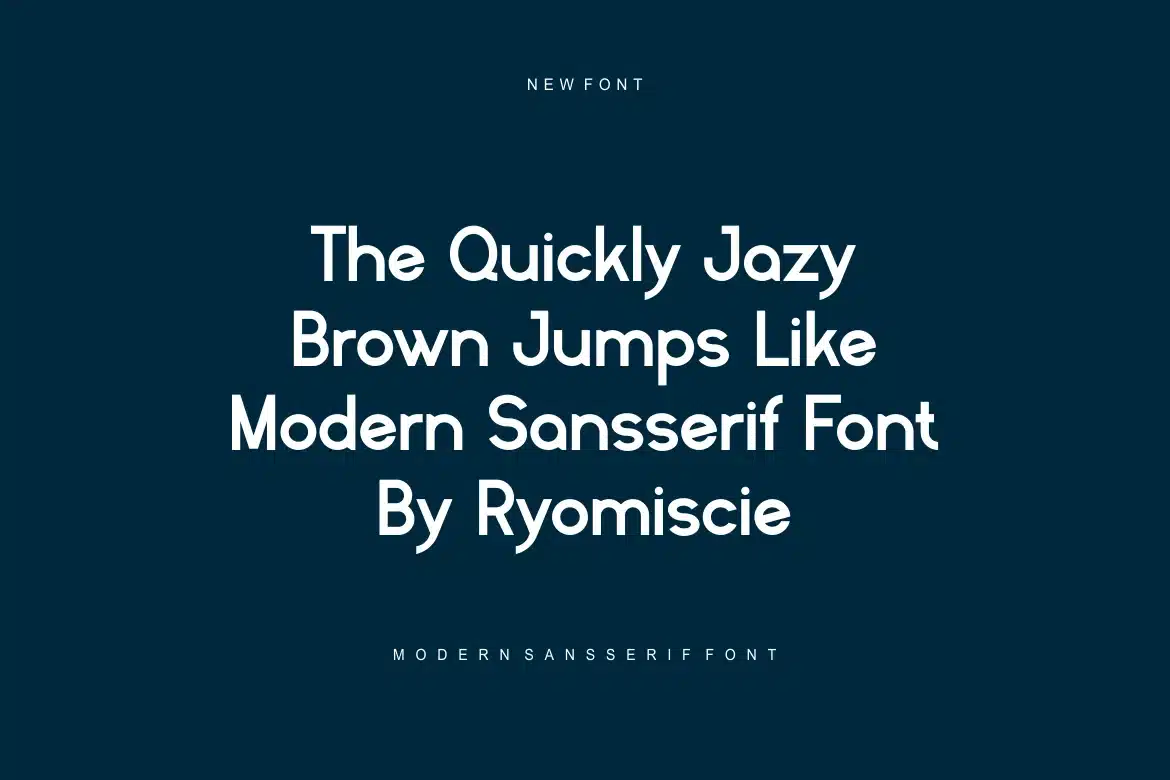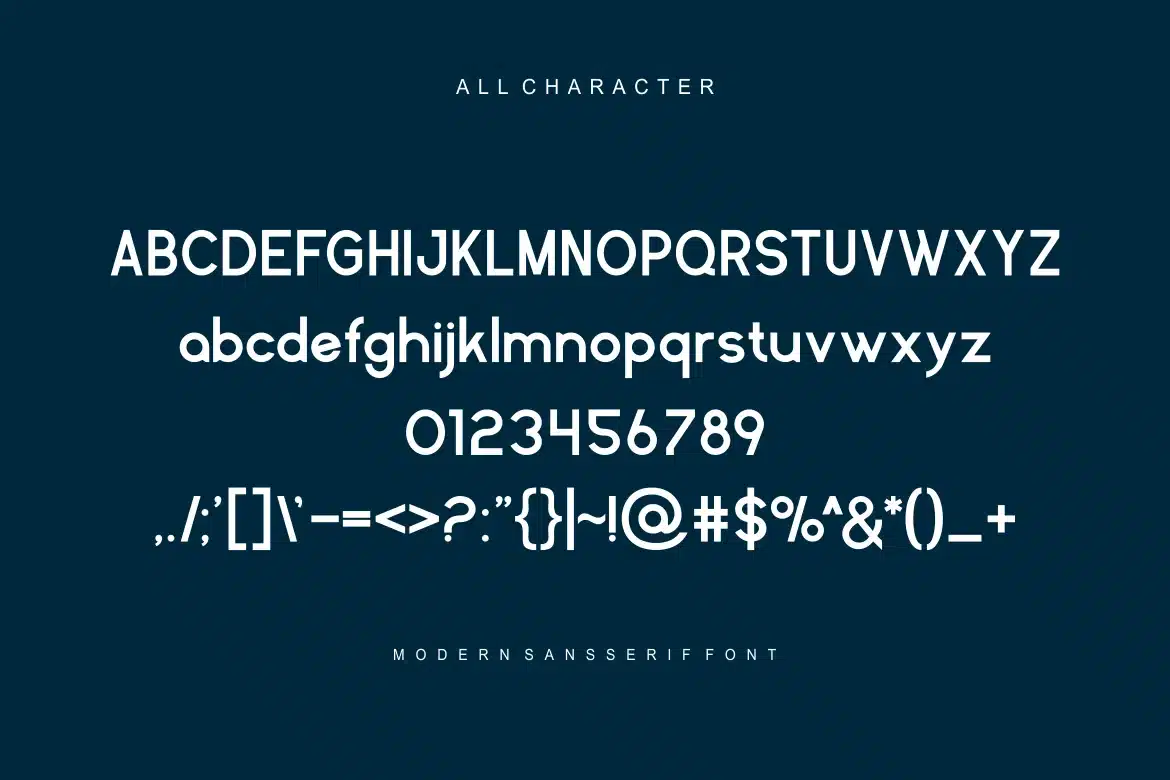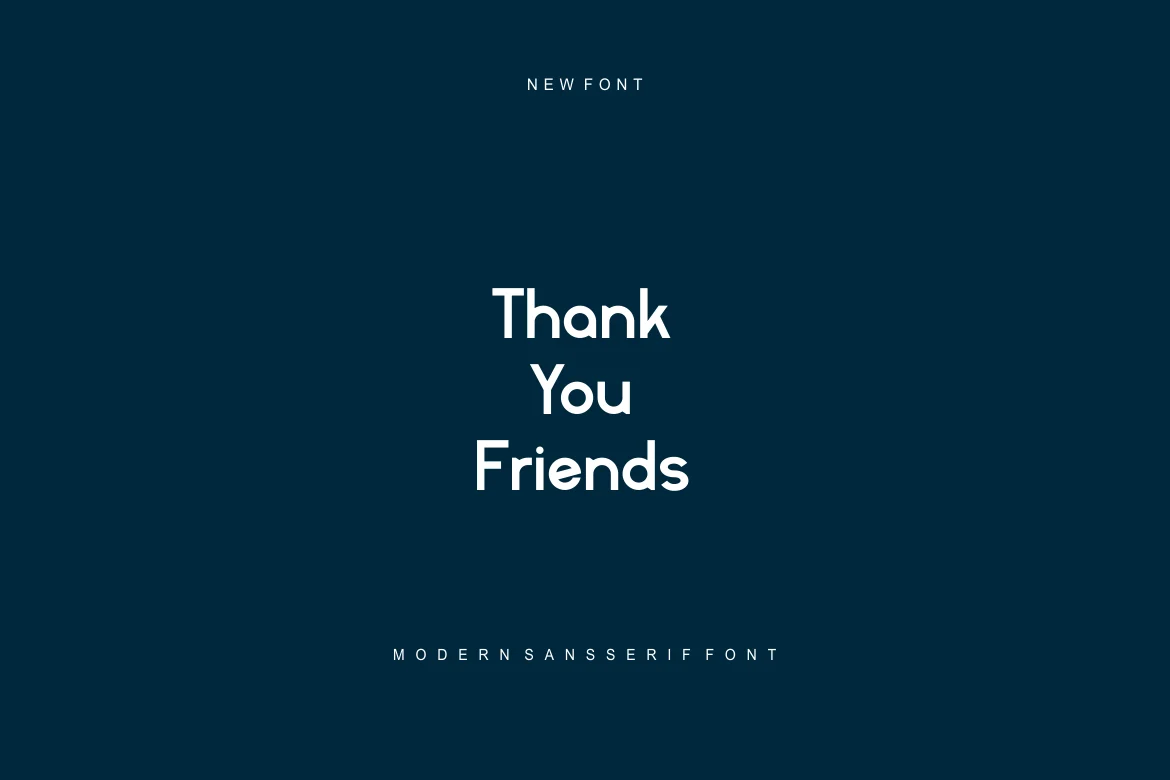
Bendhoel – Modern Sansserif Font
Introducing our new product Bendhoel Font - Modern Font
Bendhoel Font- Modern Font is a bold and authentic display font. The font is suitable for any branding project like logo,
t-shirt printing, esport, and many more. outstanding in a wide range of contexts.